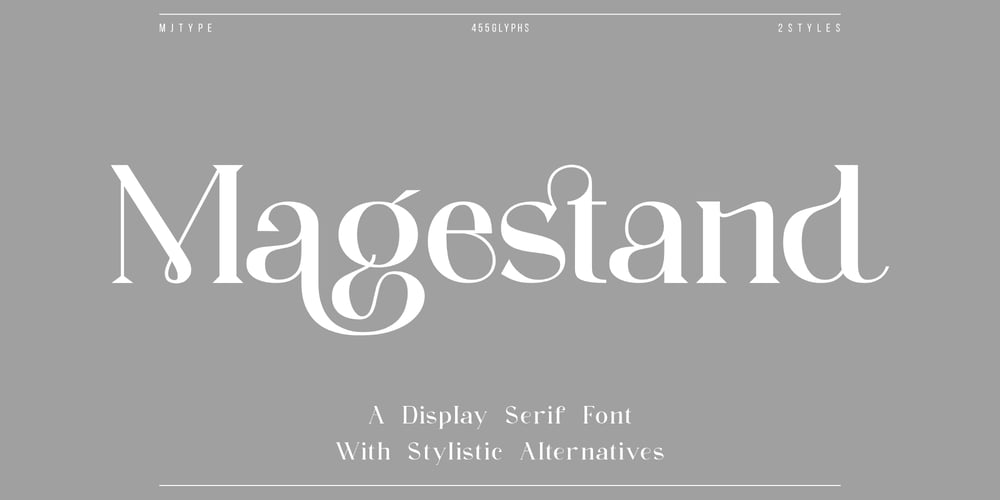
Magestand
Magestand font
Magestand Font Family was designed by Muhamad Junaid and published by MJType. Magestand contains 2 styles and family package options. Introducing Magestand typeface is serif font this is inspired by chopper font relesed in August 9th 2021. magesta typeface support multilingual languages, unique uppercase and lowercase ligatures. Create unique & elegant logotype, use it as an elegant for your next project headlines, logotype designs, posters or t-shirts, business cards.